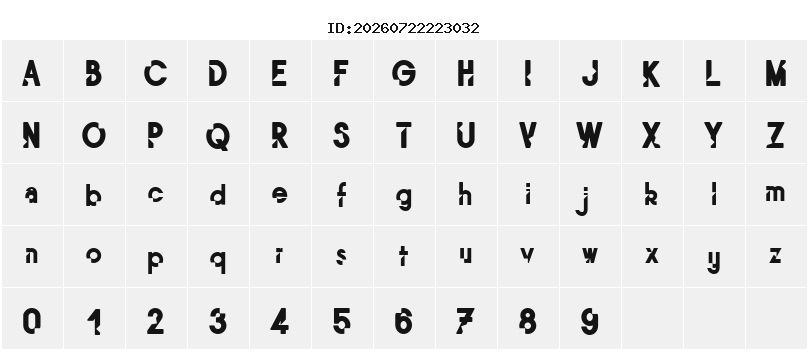
• Font Name: Mordu
• Designer: Luc Mahler
About Mordu.ttf
Mordu.ttf is a modern, elegant sans-serif font designed for ultimate readability and visual harmony. Perfect for branding, headlines, web design, and print materials.